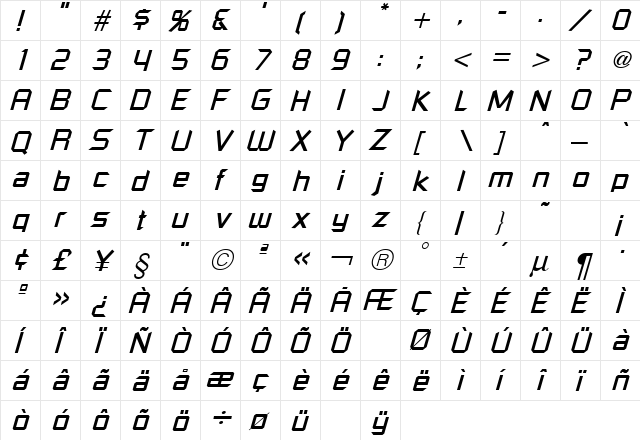
Russell Square Italic
Design Context for Russell Square Typeface
Russell Square offers clean, dependable letterforms without strong stylistic allegiance, making it a practical choice for designers who need flexibility. The slanted form adds forward momentum and visual energy.
Pro Tip: Try Russell Square for annotation and caption copy alongside an upright companion — the contrast in angle creates a dynamic but ordered typographic system.